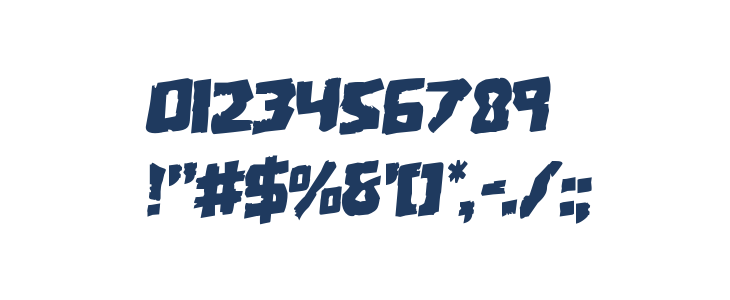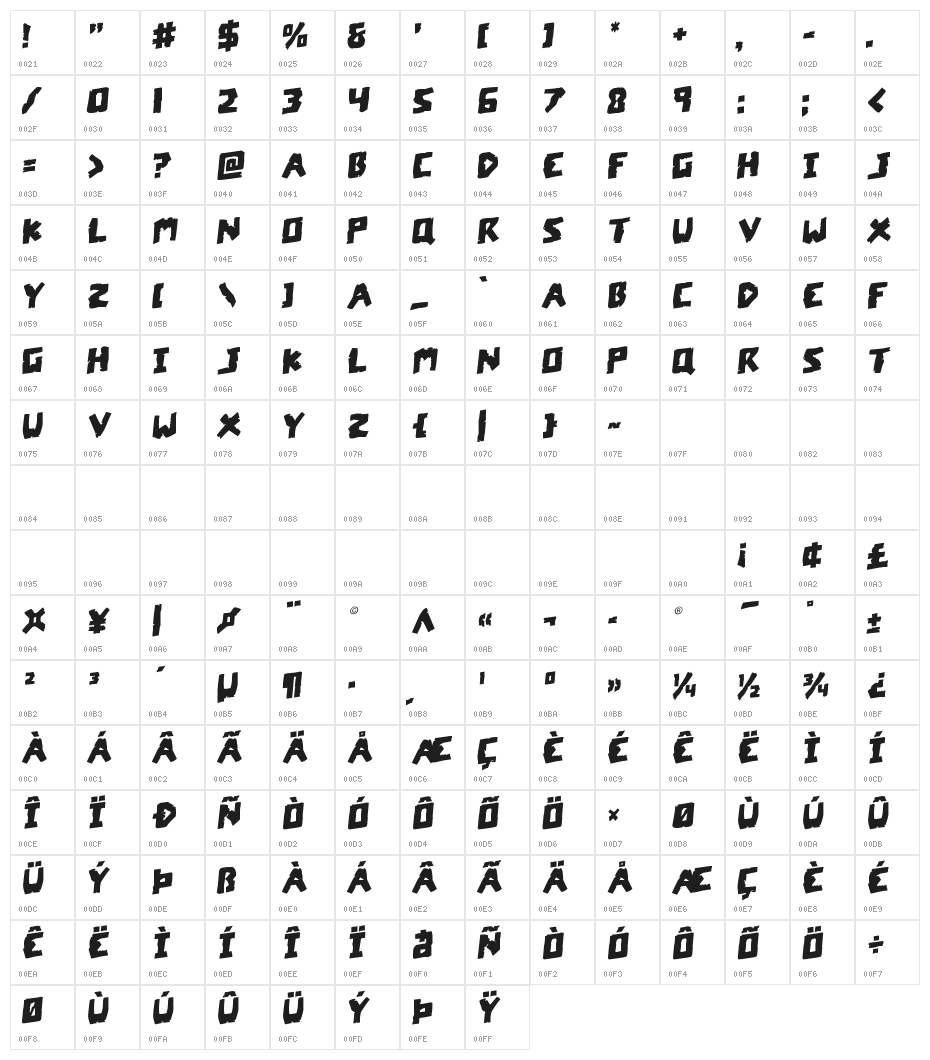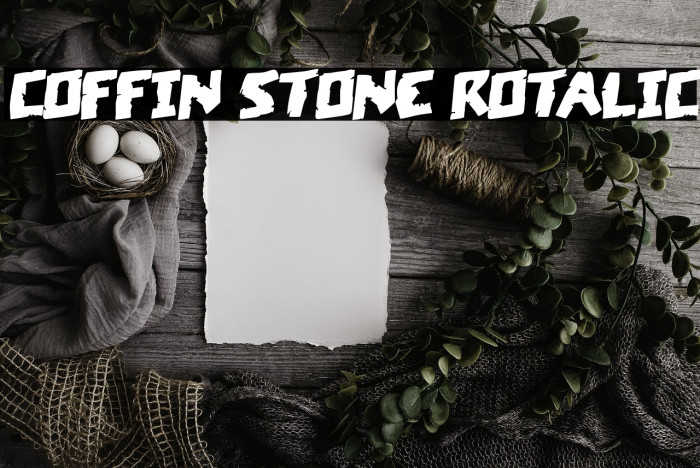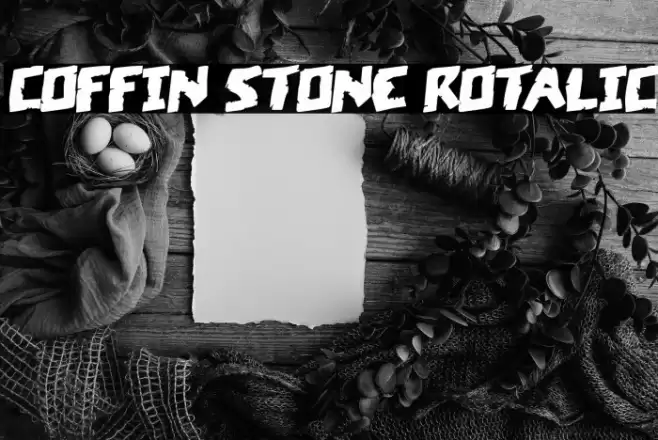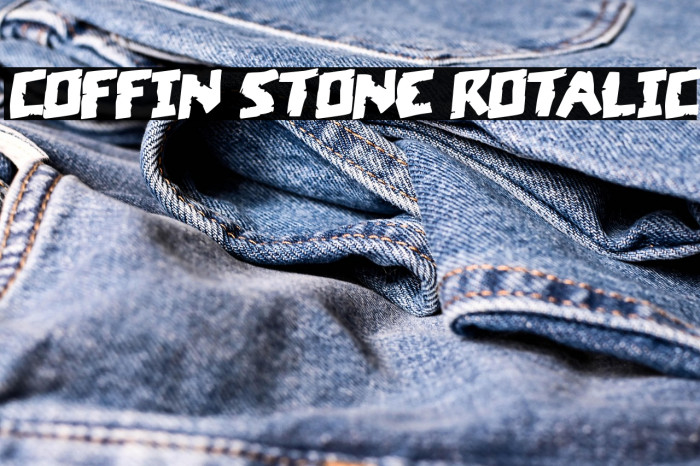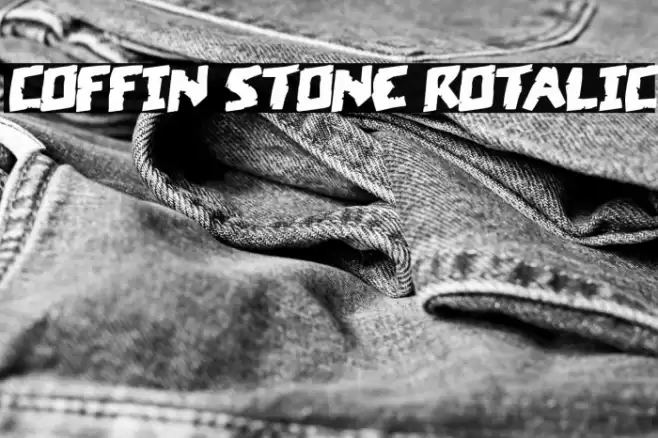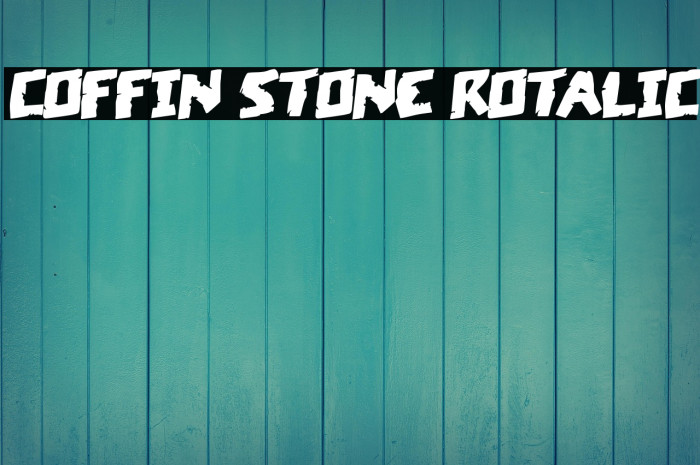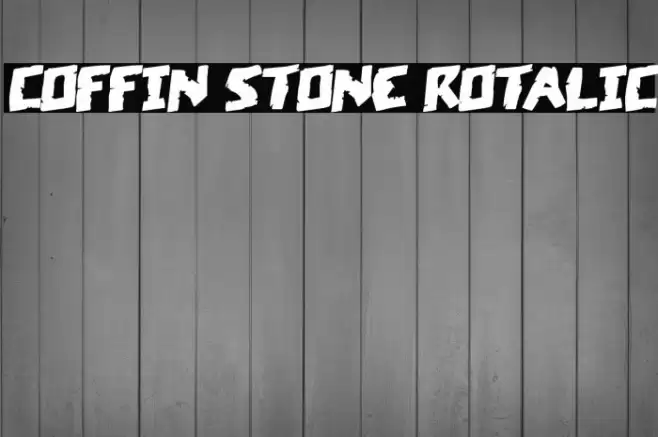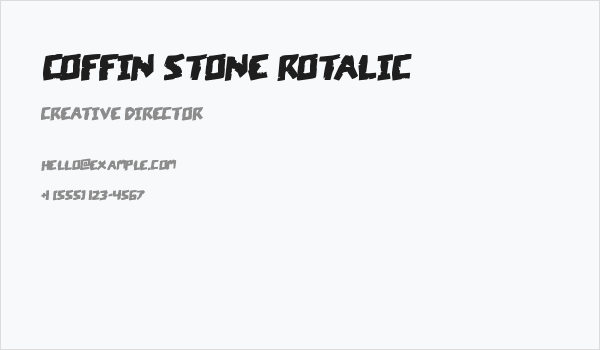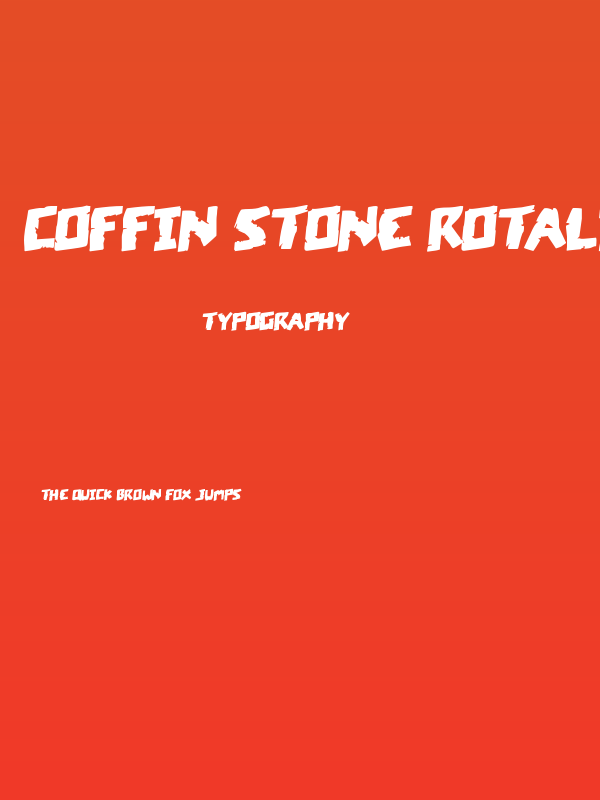
Coffin Stone Rotalic Font
Coffin Stone Rotalic Description
This font features a bold, jagged style with a rough, stone-like texture that gives it a rugged and edgy appearance. The characters are heavily stylized, with sharp angles and irregular edges, creating a sense of movement and dynamism. The uppercase and lowercase letters maintain a consistent design, while the numerals and special characters complement the overall aesthetic. This font's unique style makes it stand out, ideal for projects that require a strong visual impact.